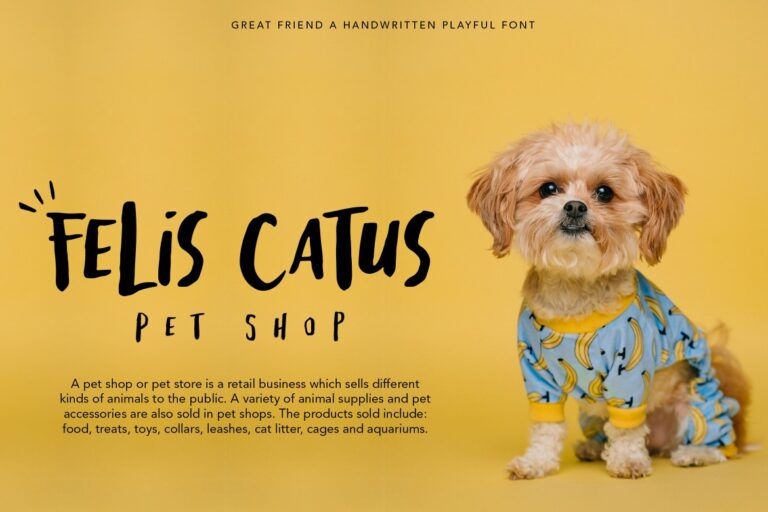
Great Friends-Instagram Font
Great Friend is a raw and dynamic script that feels beauty and friendship. Use it to take any design idea to the next level